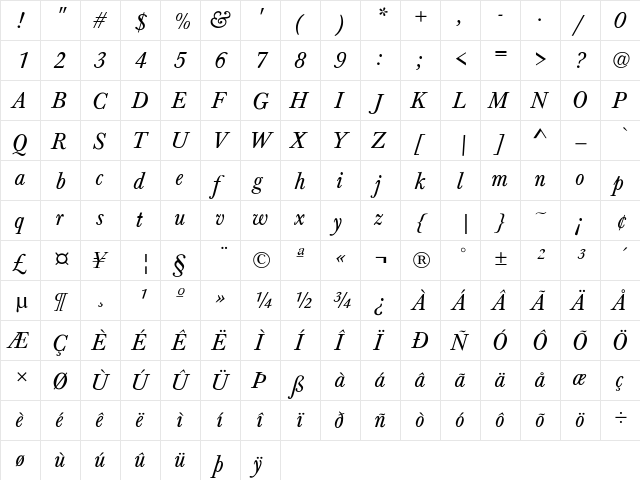
Seaton-Normal-Italic Regular
Design Context for Seaton-Normal-Italic Typeface
Seaton-Normal-Italic is a composed and adaptable typeface that performs quietly and consistently across a wide range of design contexts. Its italic angle brings a sense of urgency and motion to the letterforms.
Pro Tip: Use Seaton-Normal-Italic for emphasis, pull quotes, and subheadings where its slanted energy can add rhythm to the layout.